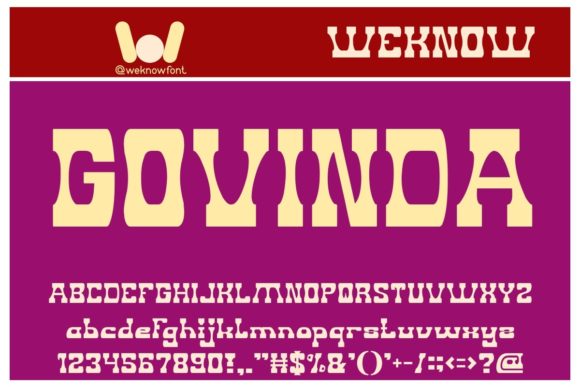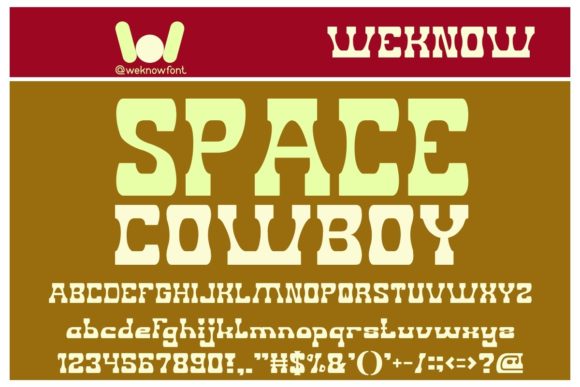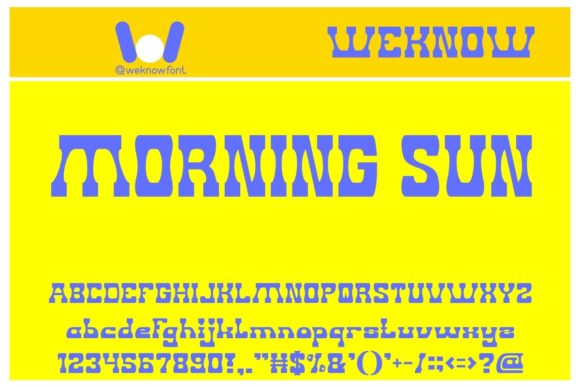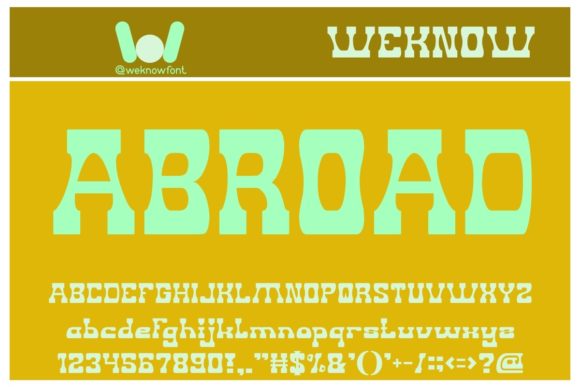
God is Watching Us Font: A Bold and Authentic Display Font for Your Branding Needs
In the world of typography, fonts play a crucial role in conveying messages, expressing emotions, and creating a lasting impression. For designers and crafters, finding the right font for their projects can be a daunting task. However, if you’re looking for a bold and authentic display font that can elevate your branding projects, look no further than the God is Watching Us Font.
What is God is Watching Us Font?
God is Watching Us Font is a bold and authentic display font designed to make a statement. Its unique and eye-catching design makes it perfect for a wide range of applications, from logos and t-shirt printing to sporting designs and more. The font’s bold and confident style is sure to grab attention and leave a lasting impression on your audience.
Key Features of God is Watching Us Font
- Bold and Authentic Design: The God is Watching Us Font features a bold and authentic design that is sure to make your branding projects stand out.
- Versatile: The font is suitable for a wide range of applications, including logos, t-shirt printing, sporting designs, and more.
- Easy to Read: Despite its bold design, the God is Watching Us Font is easy to read, making it perfect for use in a variety of contexts.
- High-Quality: The font is of high quality, ensuring that it will look great in any project.
Benefits of Using God is Watching Us Font
So, why should you choose the God is Watching Us Font for your branding projects? Here are just a few benefits of using this amazing font:
- Stand Out from the Crowd: With its bold and authentic design, the God is Watching Us Font is sure to help your branding projects stand out from the crowd.
- Professional Look: The font’s high-quality design gives it a professional look that is sure to impress your audience.
- Easy to Use: The God is Watching Us Font is easy to use and can be easily integrated into a variety of design projects.
How to Use God is Watching Us Font
Using the God is Watching Us Font is easy. Here are a few tips for incorporating it into your design projects:
- Logos: Use the God is Watching Us Font to create a bold and eye-catching logo for your brand.
- T-Shirt Printing: The font is perfect for use in t-shirt printing, adding a bold and authentic touch to your designs.
- Sporting Designs: The God is Watching Us Font is also great for use in sporting designs, such as jerseys and team logos.
- Advertising: Use the font to add a bold and attention-grabbing touch to your advertising campaigns.
In conclusion, the God is Watching Us Font is a bold and authentic display font that is perfect for a wide range of branding projects. Its unique and eye-catching design makes it sure to grab attention and leave a lasting impression on your audience. With its high-quality design, versatility, and cost-effectiveness, the God is Watching Us Font is a great choice for designers and crafters looking to elevate their branding projects.